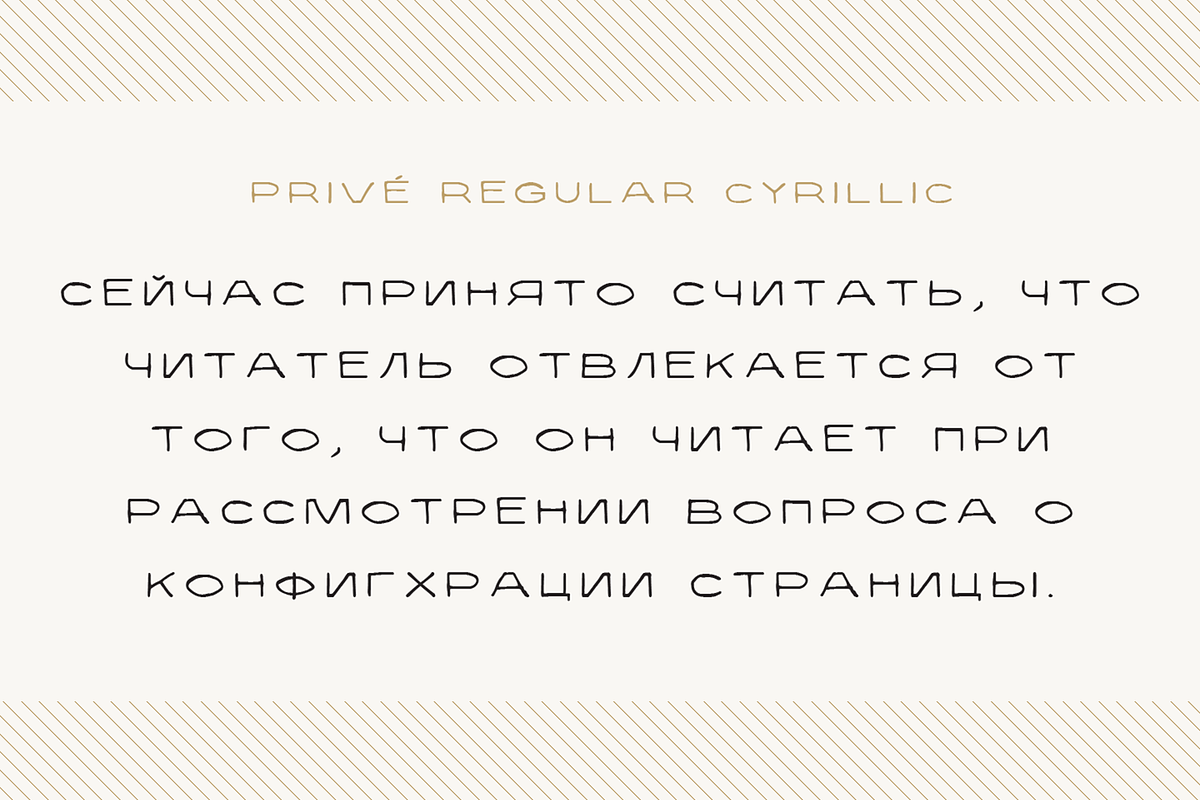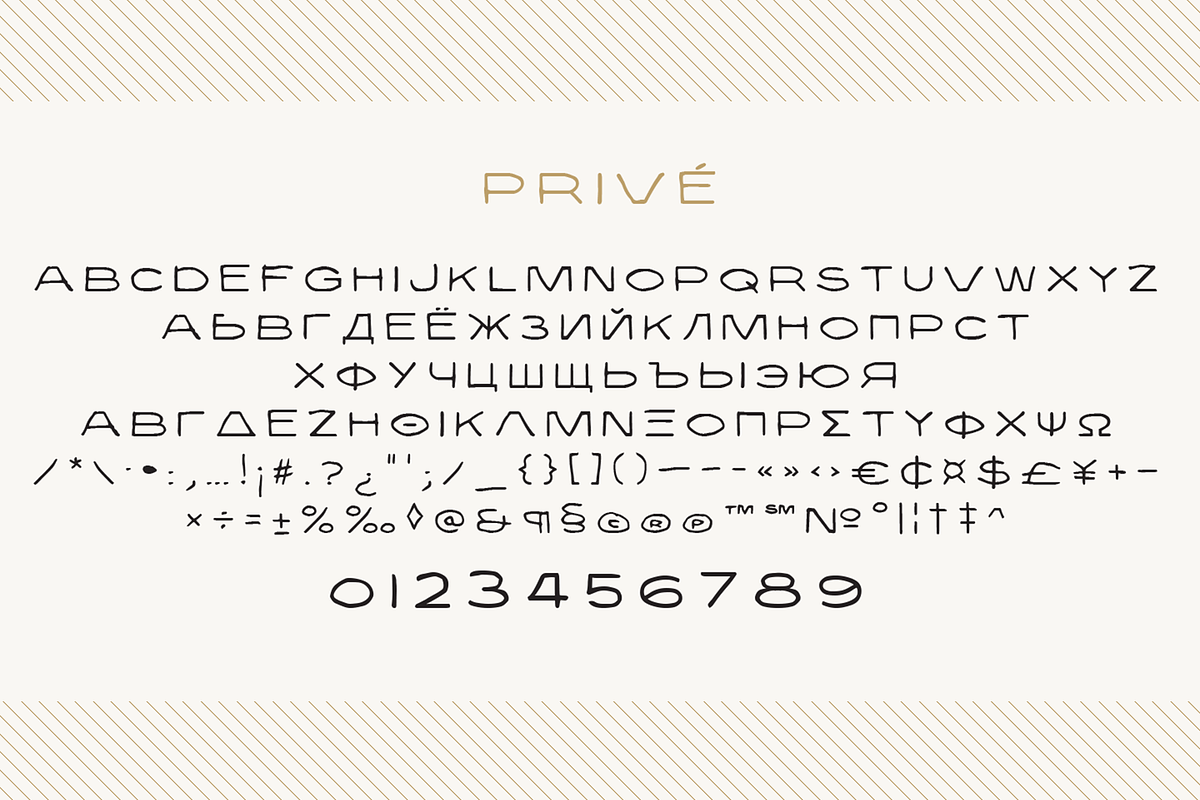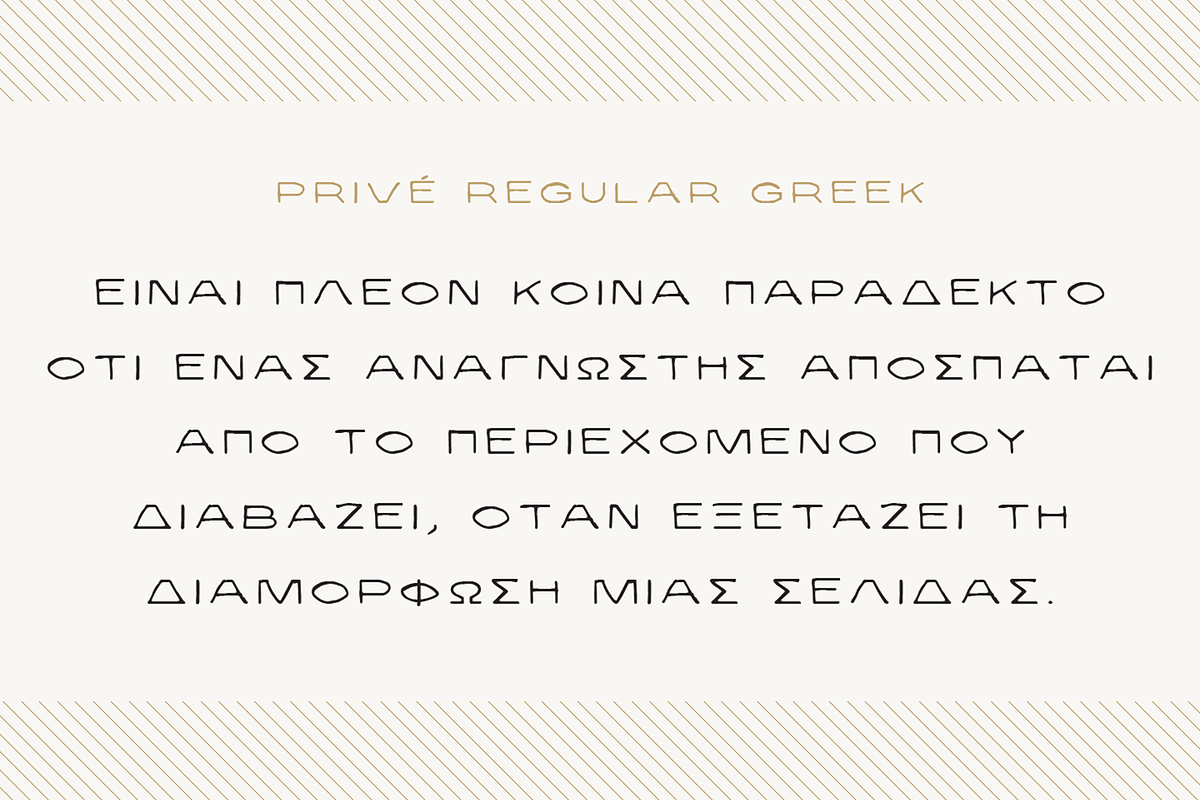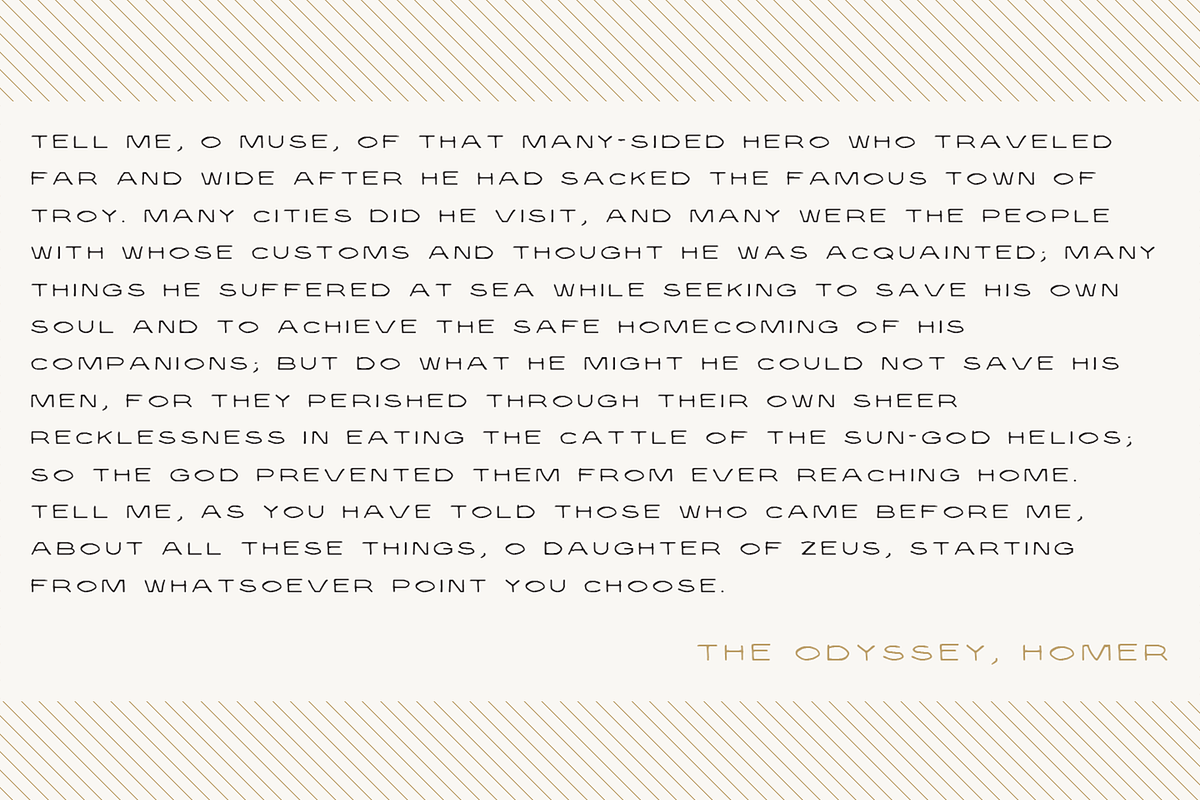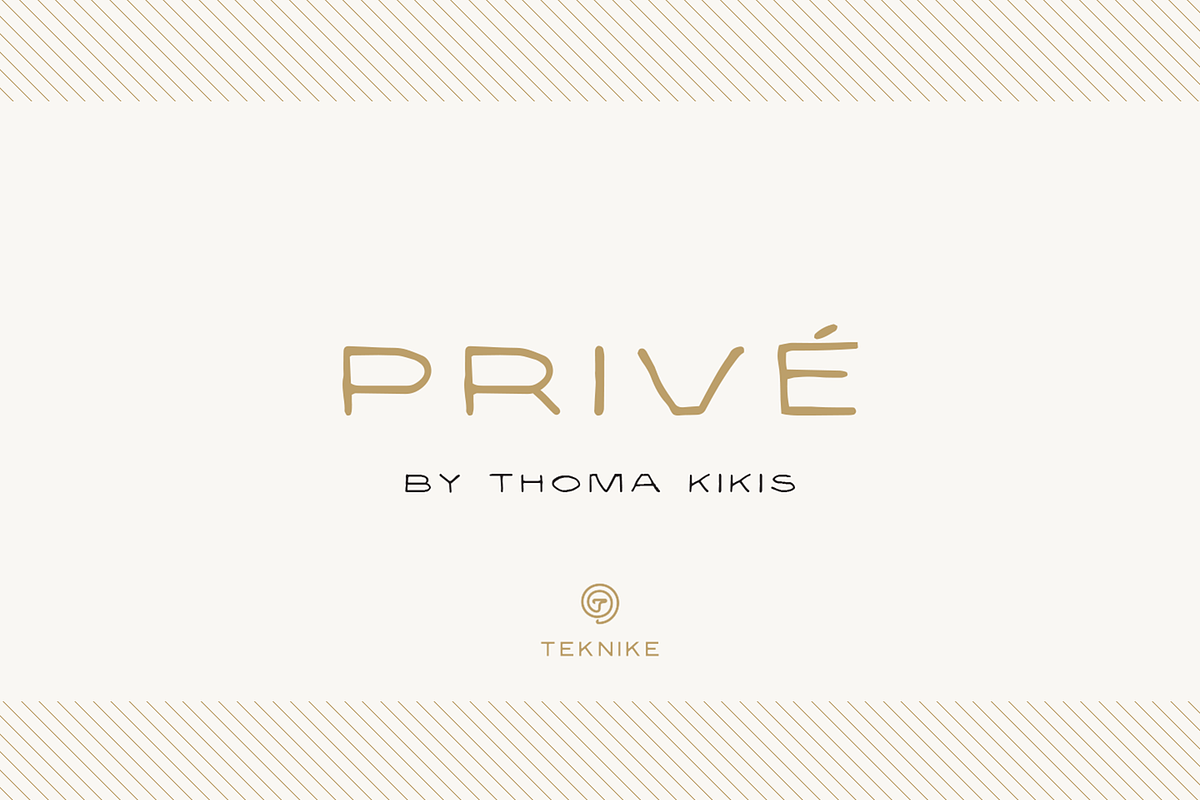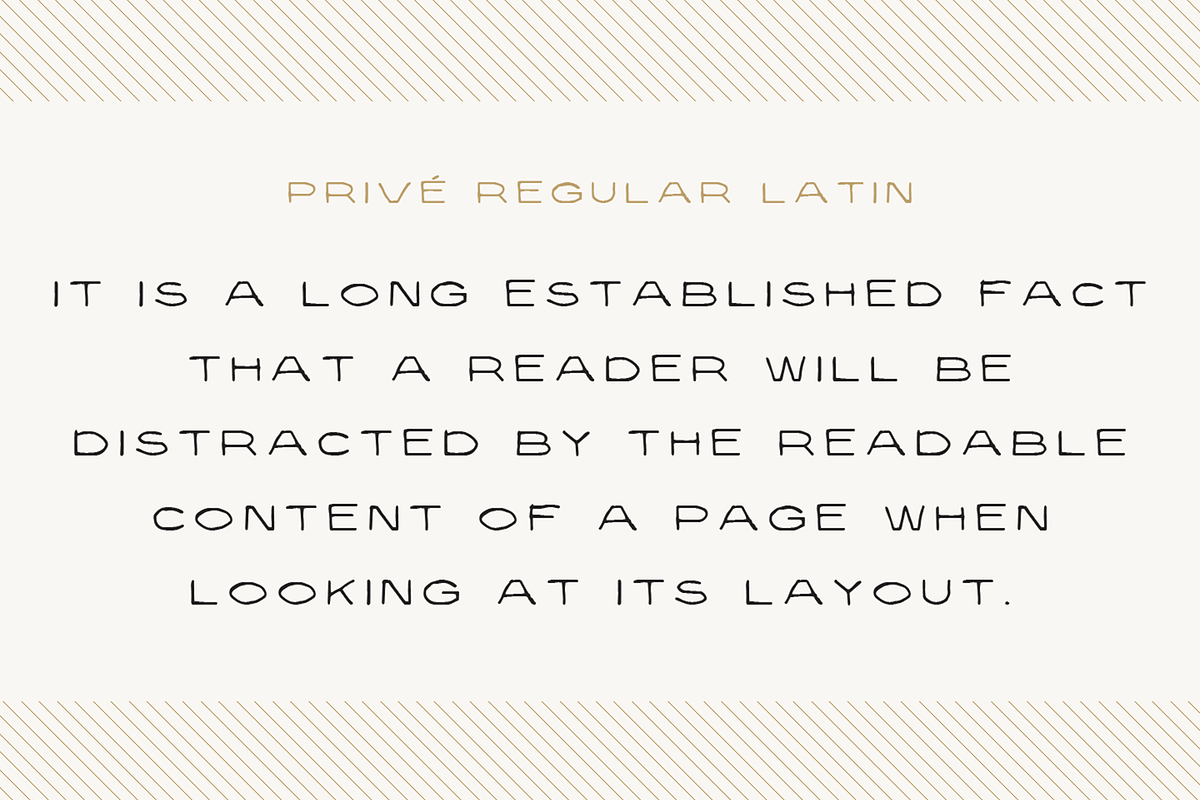
Privé
Privé is a display handwriting font. The typeface is a distinct uppercased style hand drawn font and designed to be easy to read. Privé name is Old French for “private” or “participating in secret”. Privé is great for display work, invitations, writing, architecture, posters and headings.
Privé is designed by Thoma Kikis and is currently available with Latin, Cyrillic and Greek character sets.